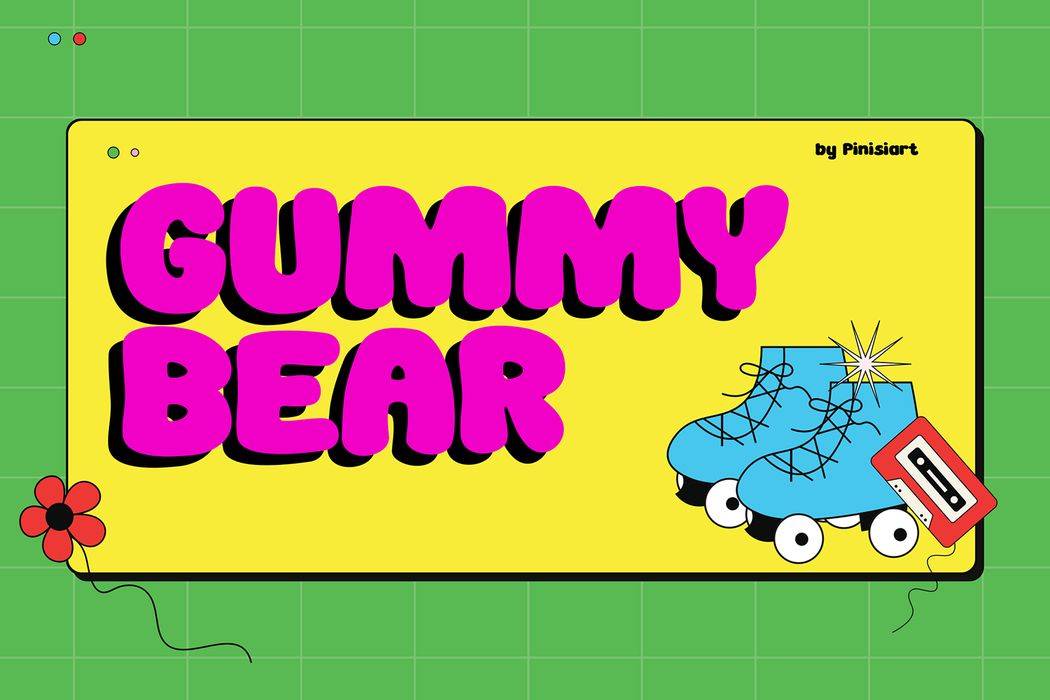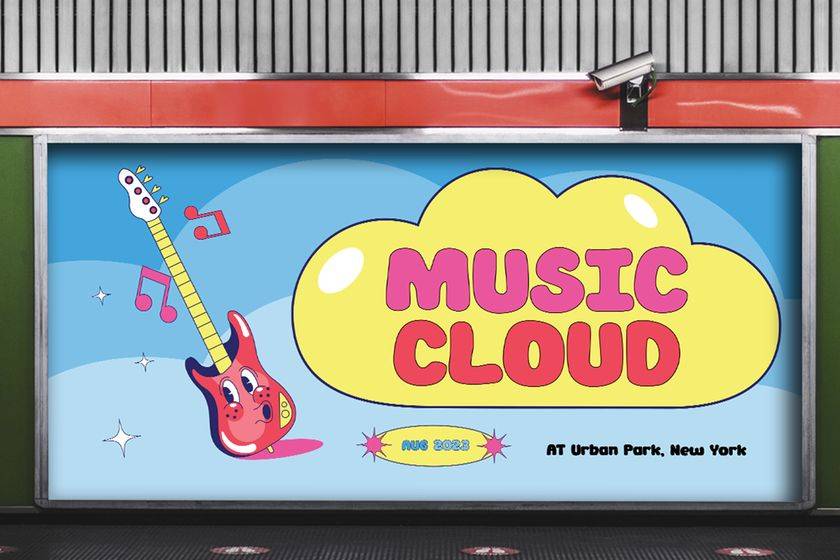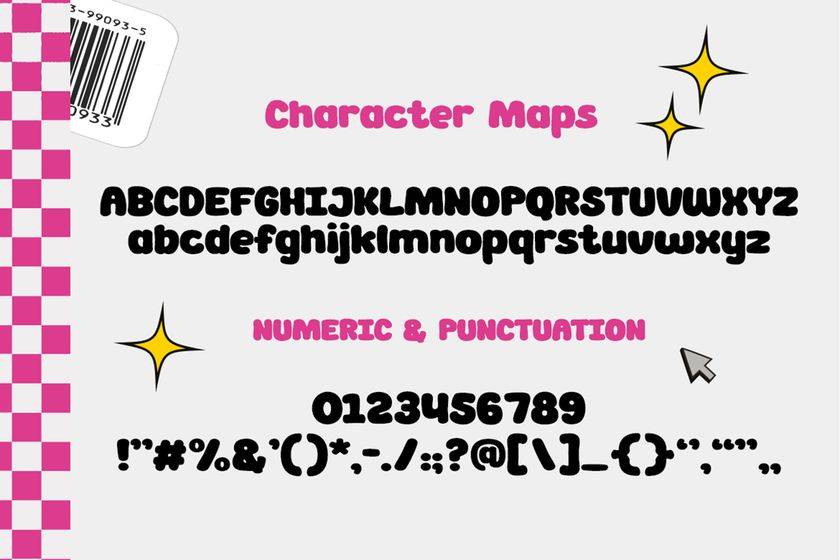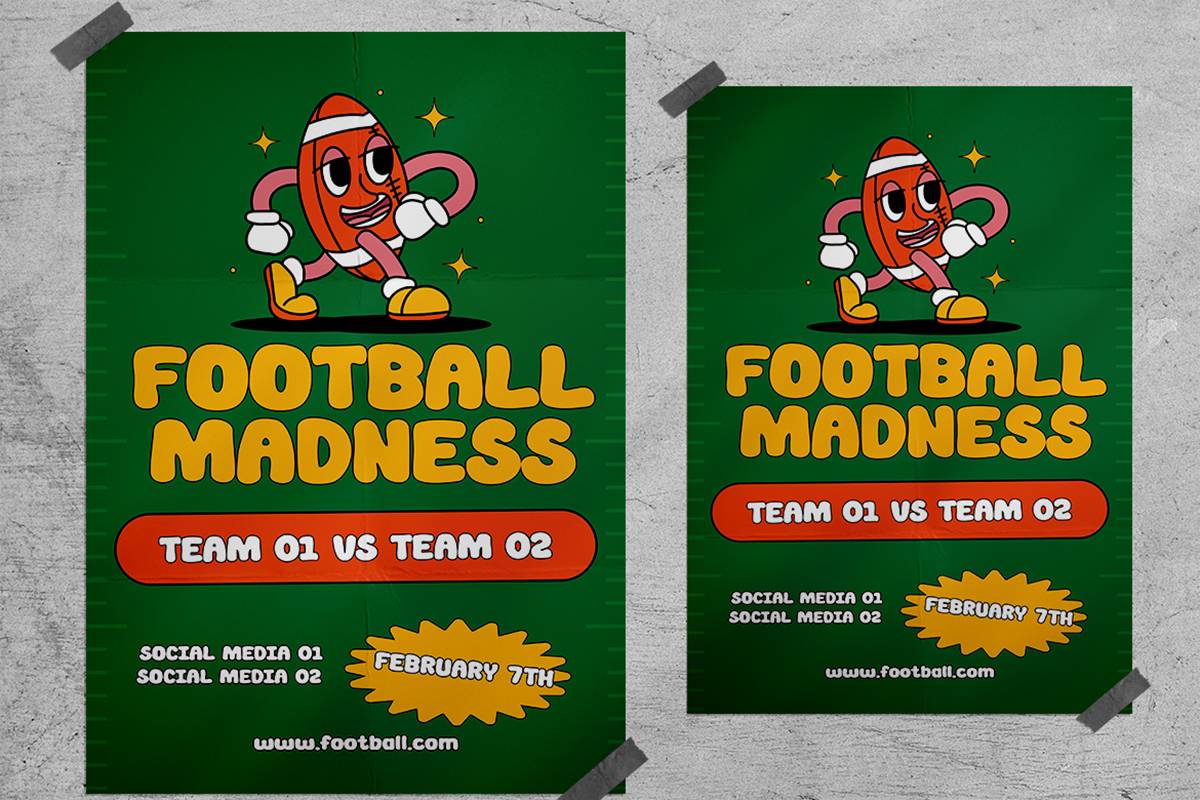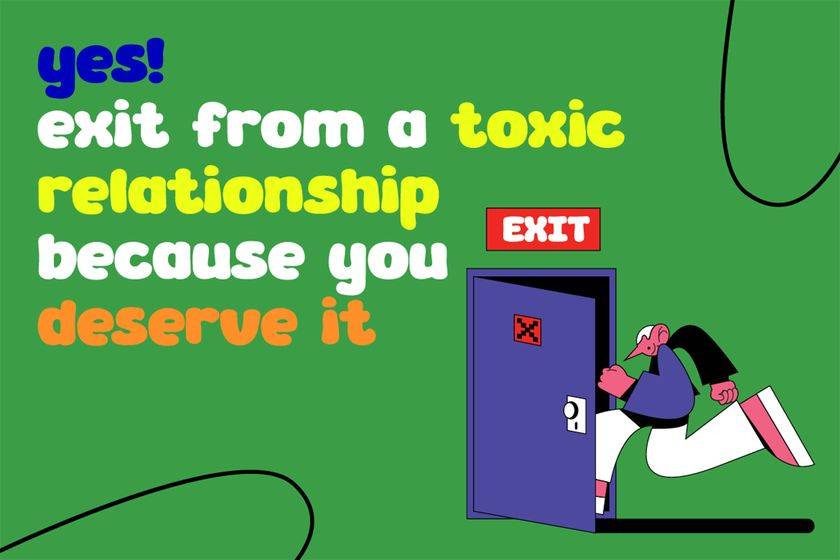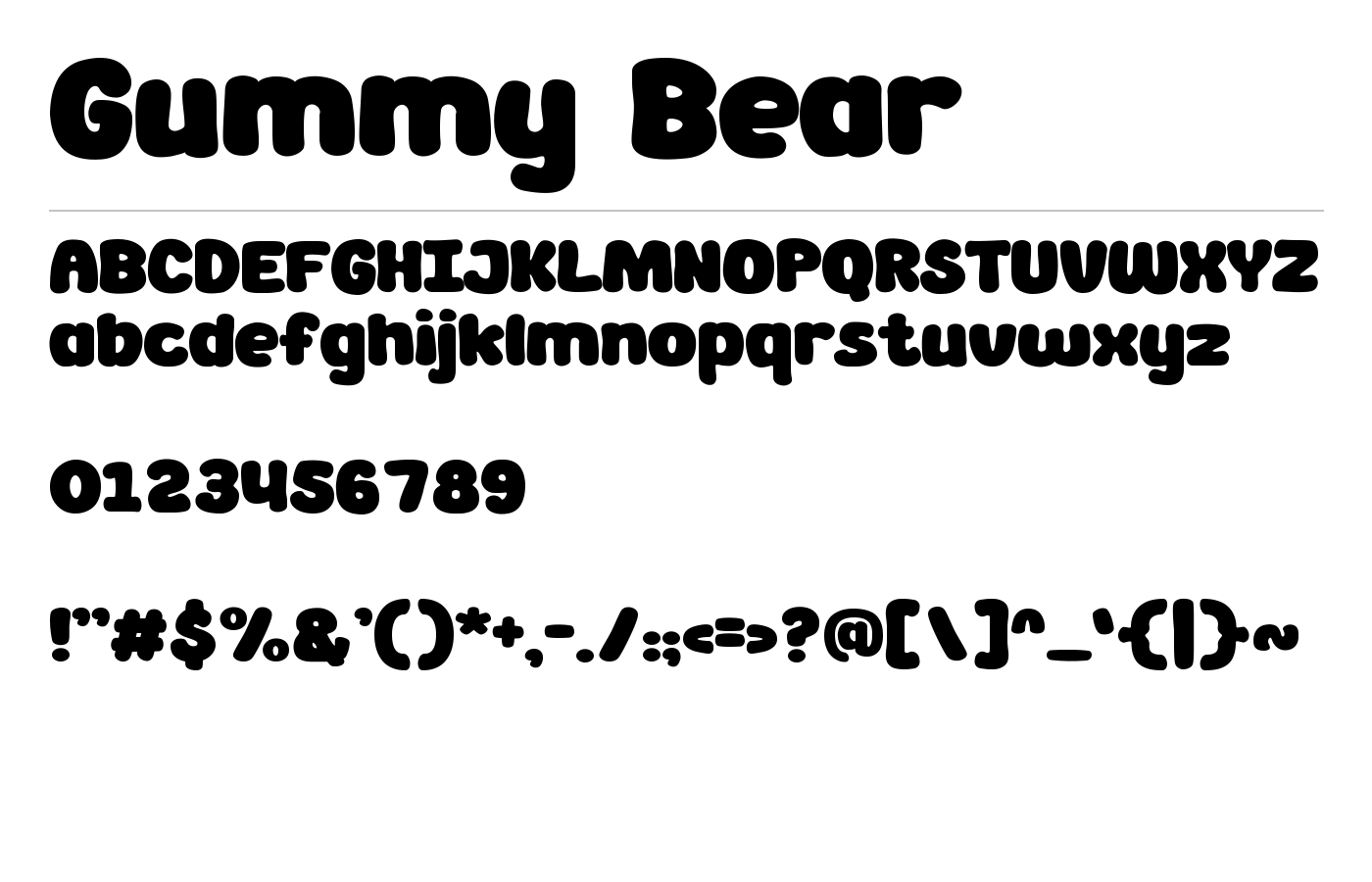
Gummy Bear is a playful, rounded sans serif font with a bold weight and soft, chunky letterforms that create a friendly and approachable look. Its smooth, bubbly shapes give it a fun and casual personality, making it ideal for children's products, playful branding, and informal designs. This font works well in logos, headlines, and packaging where a cheerful and inviting tone is desired.
Gummy Bear Font
About Gummy Bear Font
| Font family | Gummy Bear Font |
| Designer | PINISIART Team |